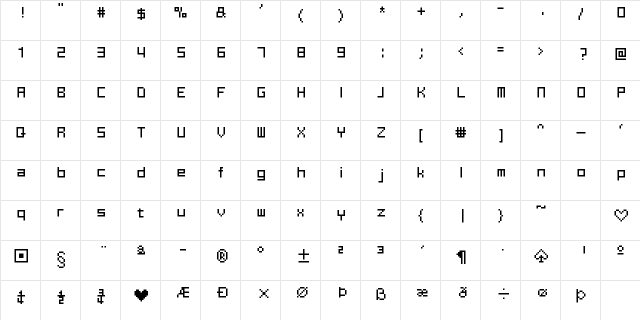
nemoddak12 Regular
nemoddak12 takes a measured approach to typography — its balanced proportions and neutral character make it a reliable workhorse for both digital and print work.